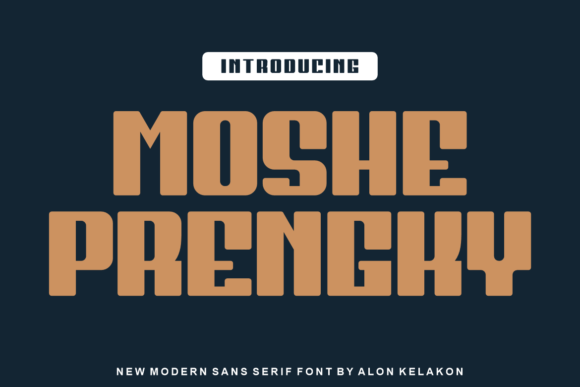
Introducing the Moshe Prengky Font, the ultimate weapon in the arsenal of any gamer seeking to add an edgy and immersive visual experience to their website. This display font, meticulously crafted by the talented alonkelakon, is a triumph of creativity and embodies the very essence of gaming.
With its bold and captivating strokes, the Moshe Prengky Font commands attention and leaves an indelible mark on the minds of players. Its distinctive design is reminiscent of the vibrant and dynamic energy that courses through the veins of captivating video game worlds.
Harness the power of the Moshe Prengky Font to:
- Unleash a world of imagination: Transport your players to a realm of limitless possibilities, where their imaginations can soar and their gaming experiences are elevated to new heights.
- Forge an emotional connection: Create an immersive atmosphere that resonates with gamers on a profound level, fostering a deep emotional connection that keeps them engaged and coming back for more.
- Establish a unique identity: Differentiate your gaming website from the masses and establish a distinct visual identity that sets it apart from the competition.
- Amplify your message: Communicate your brand's core values and messages with crystal clarity, ensuring that they resonate with your target audience and leave a lasting impression.
The Moshe Prengky Font is not merely a collection of letters and symbols; it is a gateway to a world of endless creative possibilities. Its versatility extends to a myriad of gaming-related applications, including:
- Website design: Create visually stunning gaming websites that capture the essence of excitement and adventure.
- Game UI design: Design user interfaces that seamlessly blend form and function, enhancing the player's overall experience.
- Marketing materials: Craft eye-catching posters, flyers, and social media graphics that ignite curiosity and leave players yearning for more.
- eSports branding: Establish a strong visual identity for your eSports team or organization that reflects your passion and competitive spirit.
Join the ranks of gaming enthusiasts who have embraced the Moshe Prengky Font and witnessed the transformative impact it can have on their websites and marketing efforts. Let this remarkable font be your secret weapon in creating a gaming experience that goes beyond the realm of pixels and bytes and leaves an indelible mark on the hearts and minds of your players.